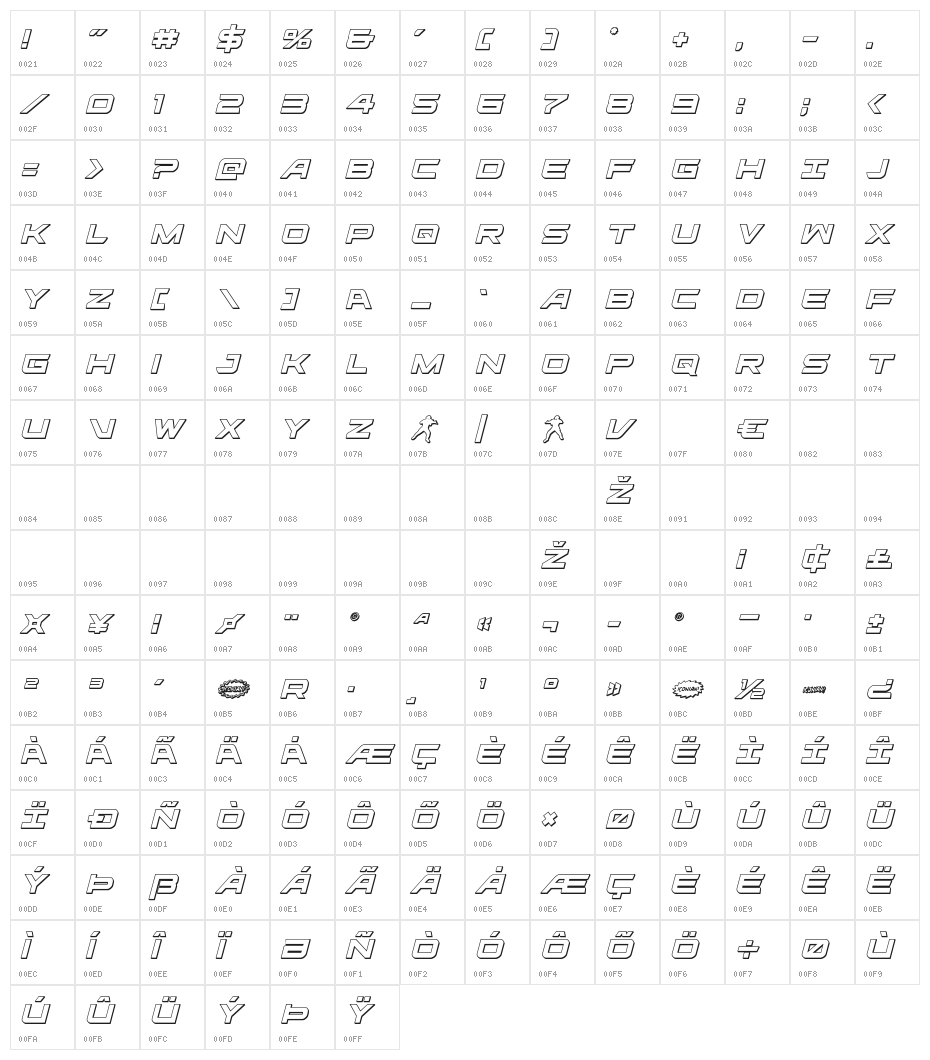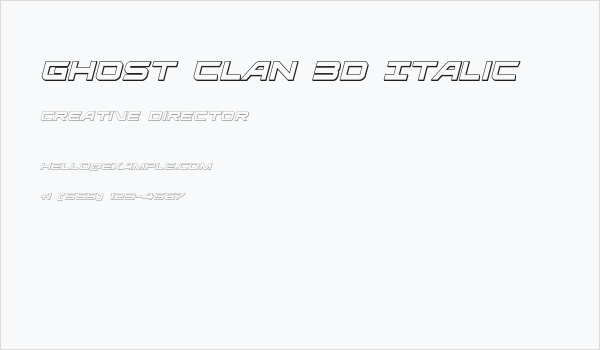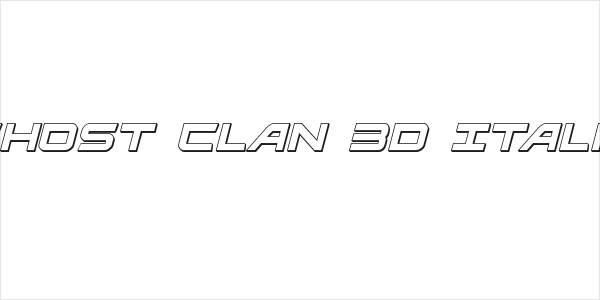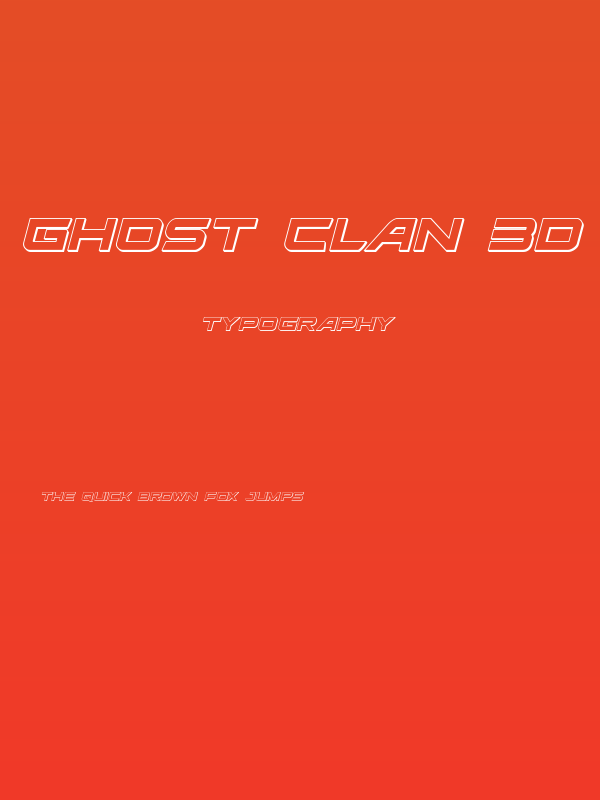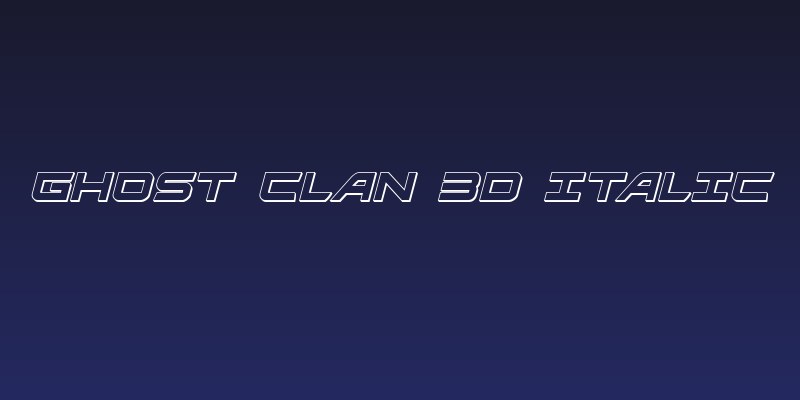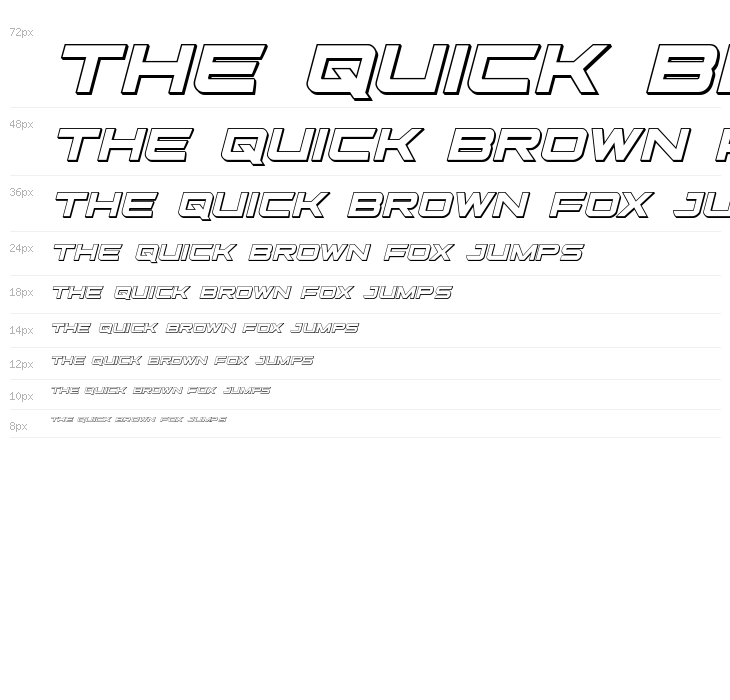
Ghost Clan 3D Italic Font
Ghost Clan 3D Italic Description
This font features a bold, three-dimensional design with an italic slant, giving it a dynamic and futuristic appearance. The characters are outlined, creating a hollow effect that enhances the 3D illusion. The uppercase letters are angular and geometric, with sharp edges and a consistent stroke width. The numerals and special characters follow the same style, maintaining uniformity across the set. The font's structure is clean and precise, making it suitable for modern and tech-oriented designs. Its unique style captures attention, making it ideal for standout headlines or logos.
Overall StyleFuturistic
Proposed ProjectsIdeal for tech branding, futuristic posters, video game titles, and sci-fi themed projects.